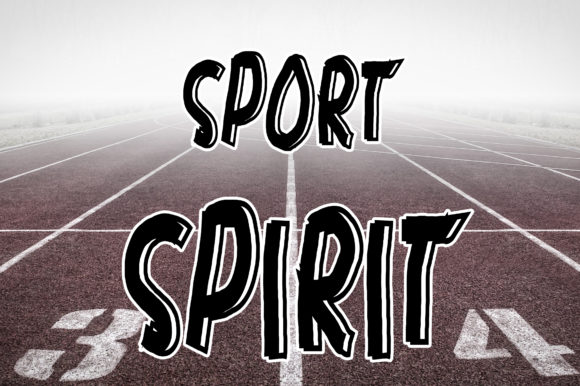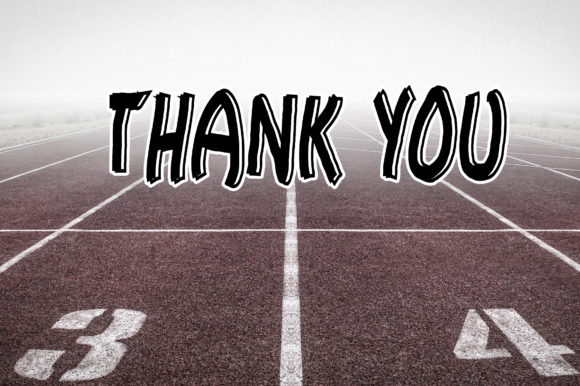
Get Ready to Knock Out Your Designs with Boxing Font
Have you ever been brainstorming a new project and suddenly a spark of creativity hits you? The ideas start flowing, and you can’t wait to bring them to life. For designers, those moments are what make the job so rewarding. And sometimes, all it takes is the right font to elevate your concept and make it truly unforgettable.
That’s where Boxing Font comes in – a bold, dramatic, and thick lettered display font that’s sure to make your designs stand out. Its purpose is to grab attention, evoke emotions, and leave a lasting impression. Whether you’re creating a marketing campaign, designing a logo, or crafting a social media post, Boxing Font is the perfect addition to your creative arsenal.
As a designer, you know how valuable it is to have the right tools at your disposal. Boxing Font is one of those tools that can take your designs to the next level, making them more engaging, more memorable, and more effective. So why not give it a try and see how it can help you knock out your next project?
Boxing Font Key Features
- Font Family: Boxing Font is a unique sans-serif font family designed for use in boxing and sports contexts.
- Unique Characteristics: Features bold, athletic lines and a distinctive feel that evokes the spirit of boxing, making it perfect for sports-related designs, logos, and branding.
- Character Set: Includes a wide range of characters, including Latin, Cyrillic, and Greek alphabets, as well as various punctuation marks and symbols.
Designer Review: Boxing Font
Boxing Font is a sans-serif font that caught my attention with its unique and quirky design. ✨ The bold and condensed style makes it perfect for headings and titles, adding a touch of modernity to any design. The font’s irregular shapes and asymmetrical forms give it a unique character that’s sure to stand out.
One of the things I like about Boxing Font is its versatility. ✨ It comes in a range of weights and styles, making it easy to customize and adapt to different design needs. The font also works well in digital and print formats, ensuring a consistent look across various media.
- ⚠️ The font’s condensed style can make it difficult to read in certain contexts, particularly in body text.
- ⚠️ The irregular shapes and asymmetrical forms can also make the font more challenging to use in certain design applications.
Overall, I think Boxing Font is a great addition to any designer’s toolkit. While it may have some limitations, its unique style and versatility make it a valuable resource for designers looking to add some personality to their work. With careful application, Boxing Font can be a real showstopper.
The Boxing Font is commonly used in:
- Graphic design projects.
- Branding and logos.
- Advertising and marketing materials.
- Typography-based art.